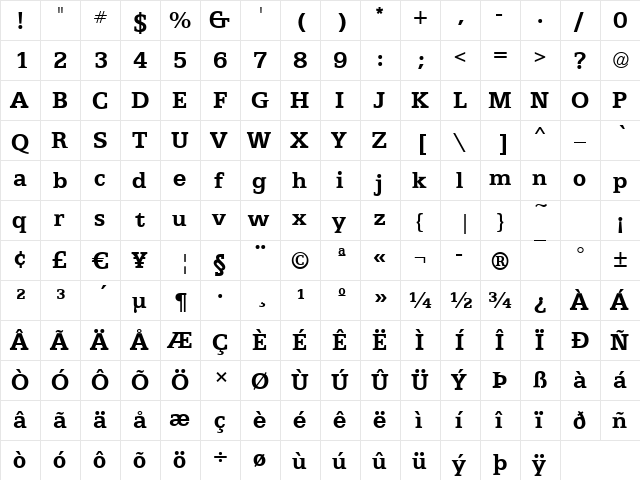
Egyptian-Text Bold
Design Context for Egyptian-Text Typeface
Egyptian-Text combines the readability of serif typography with the visual weight of a slab construction, resulting in a typeface that feels both authoritative and approachable. Its bold stroke weight gives it real presence on the page.
Suited to magazines, political campaign materials, bold packaging, and any setting where authority matters.
Pro Tip: Use Egyptian-Text for headlines and subheadings where its slab serifs can make an impression. It also holds up well in mid-size body copy thanks to its sturdy construction.